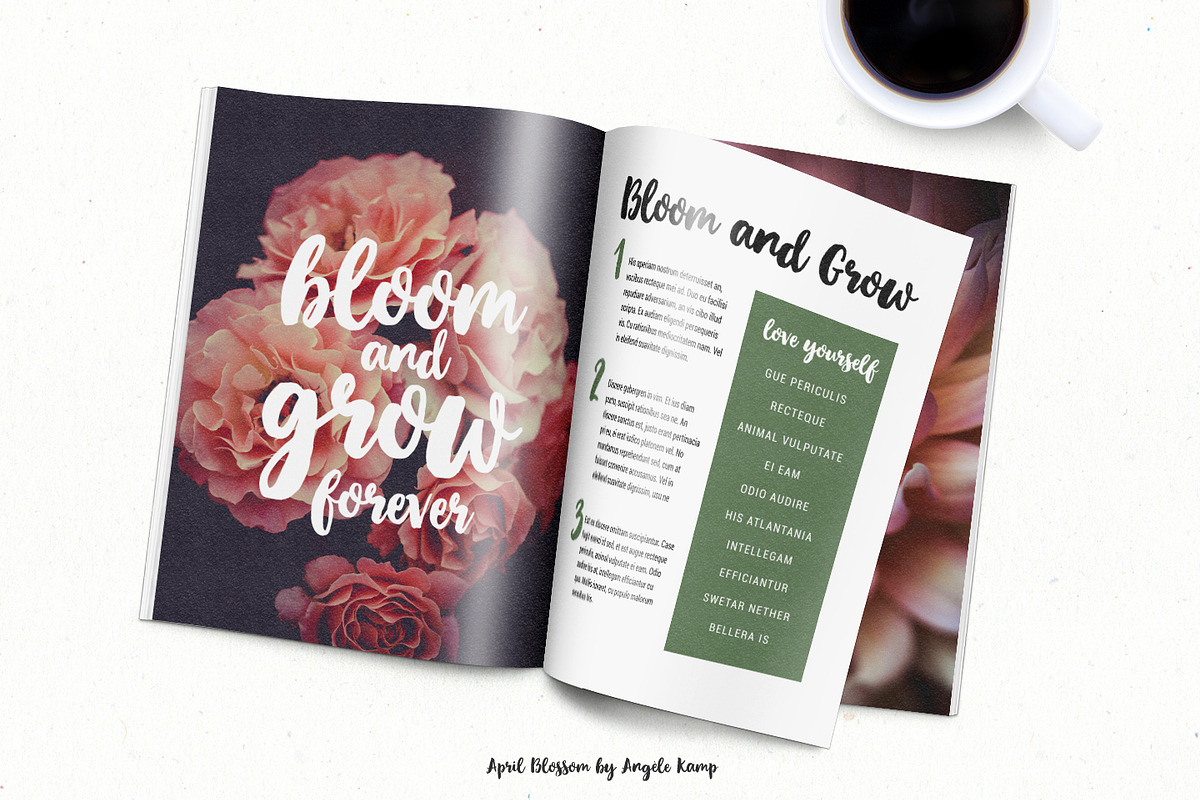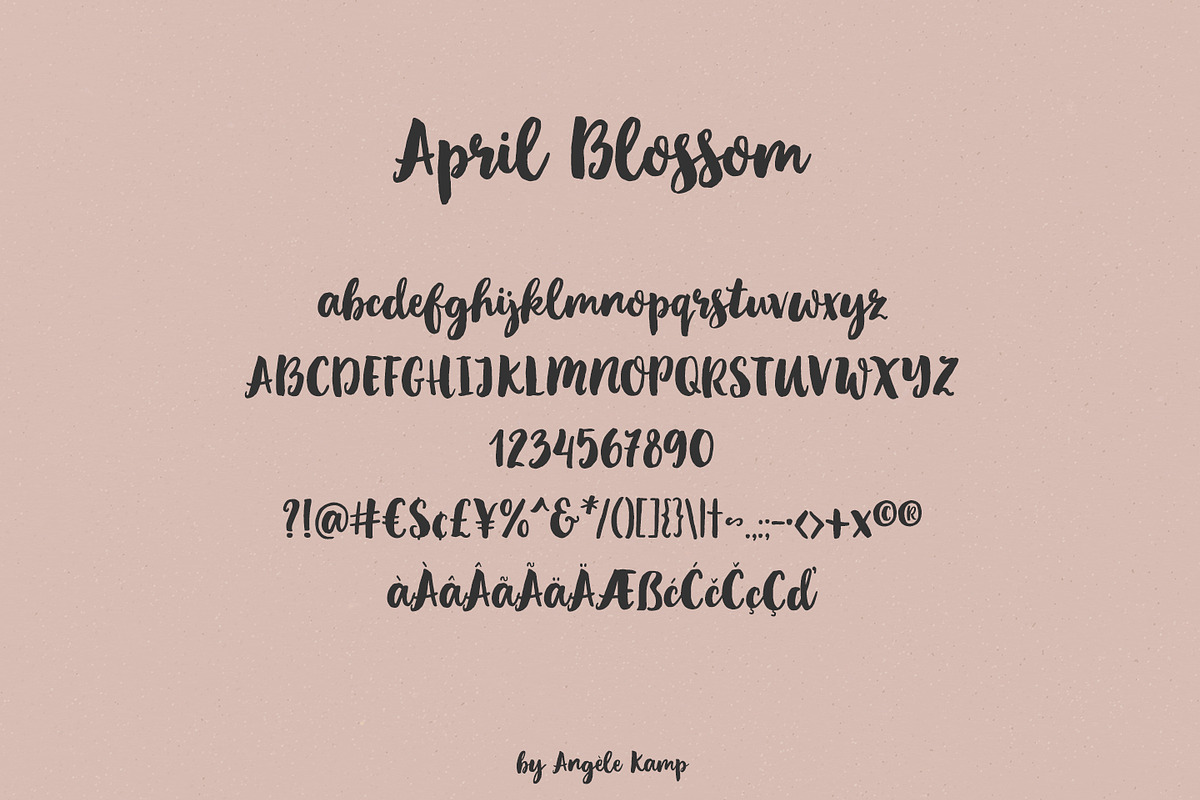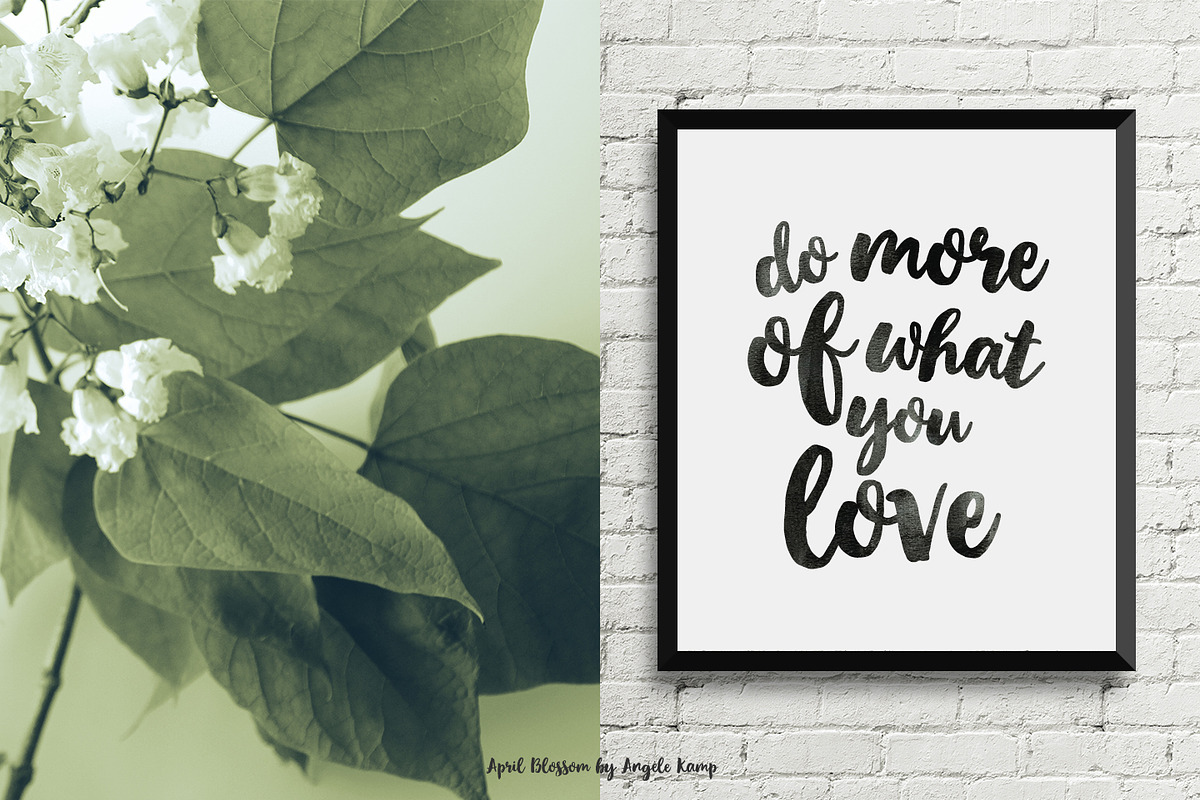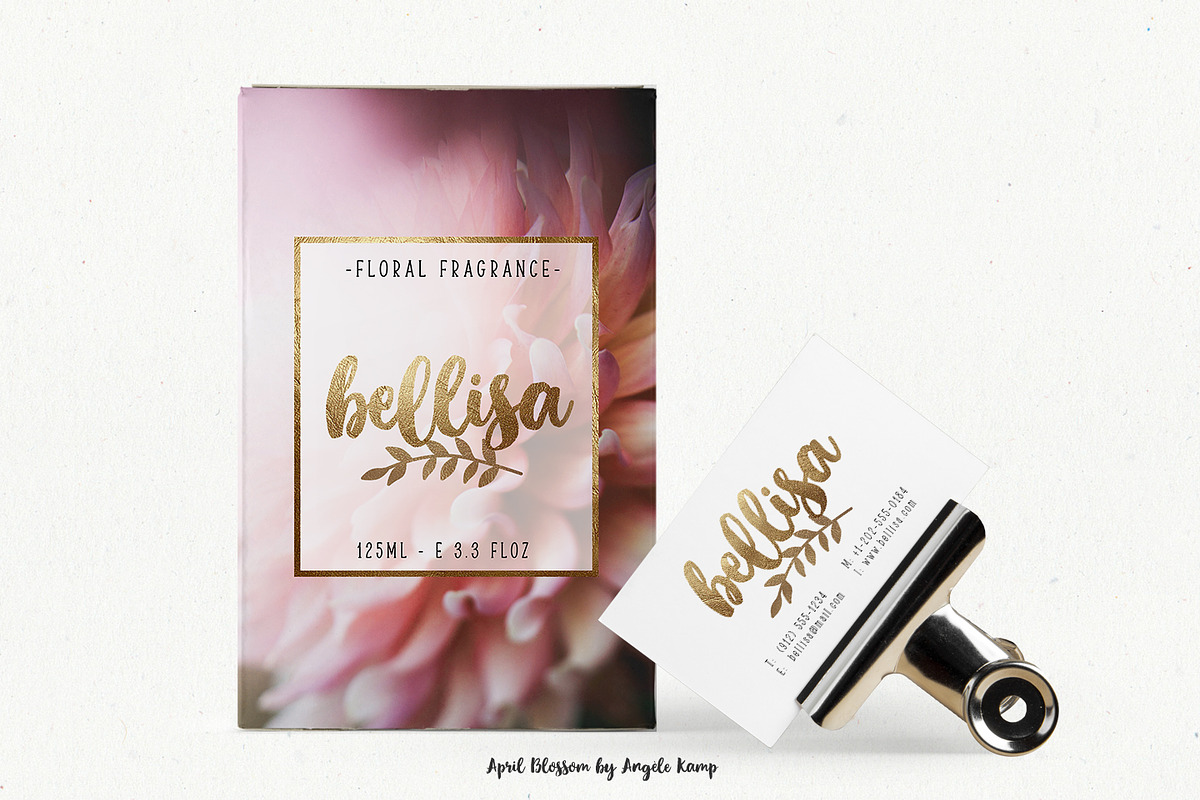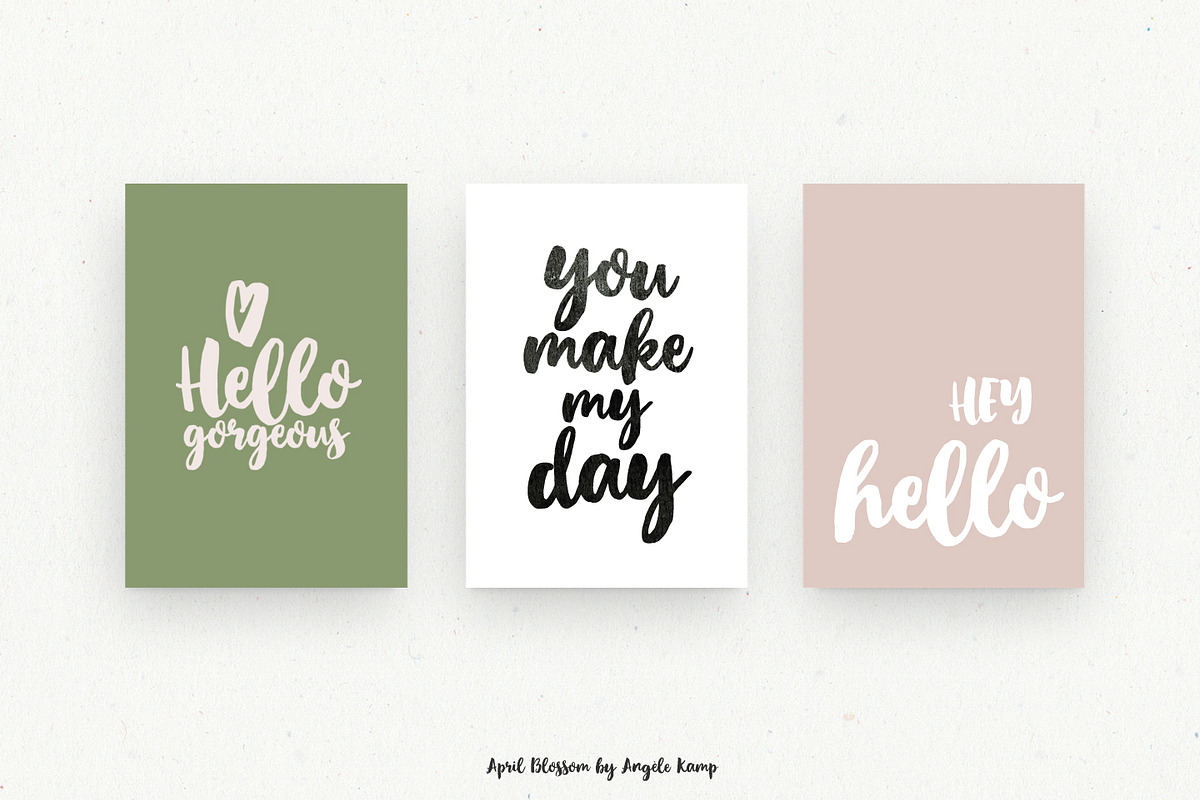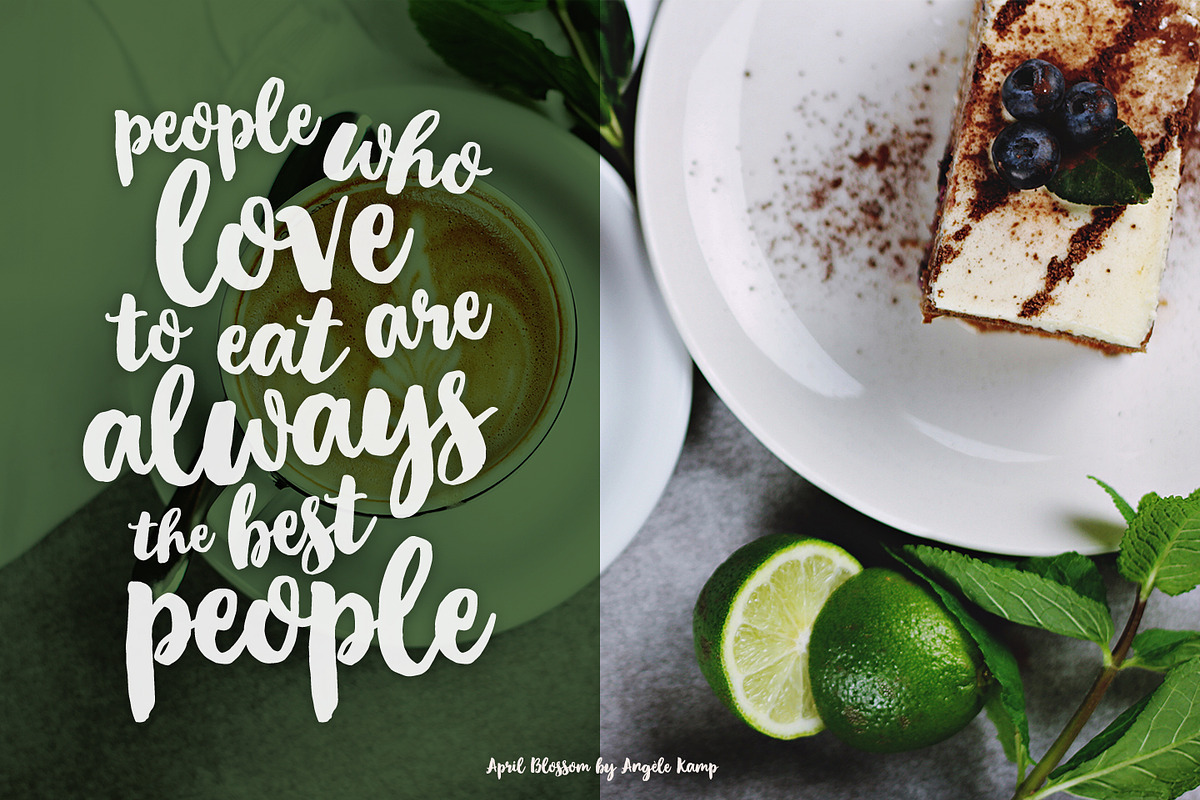
April Blossom bold brush font
April Blossom bold brush font by Angele Kamp is a font selected for branding, posters, packaging, typography.
Why April Blossom bold brush font is worth a look
April Blossom bold brush font by Angele Kamp fits naturally into Branding, posters, packaging, typography.